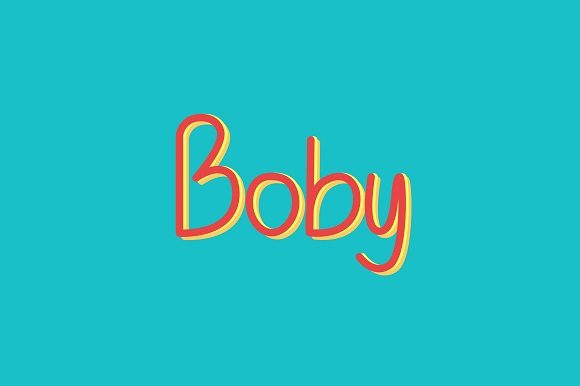
Boby
About Boby Font
Boby is a sweet and friendly handwritten font. Its natural and unique style makes it incredibly fitting for a large pool of designs. The only limit is your imagination!